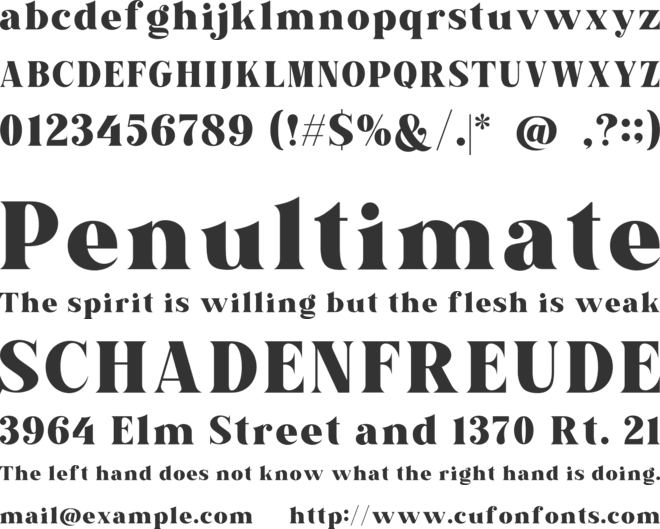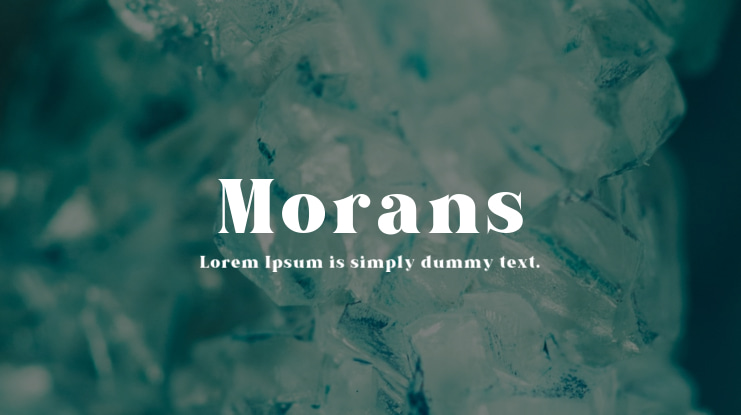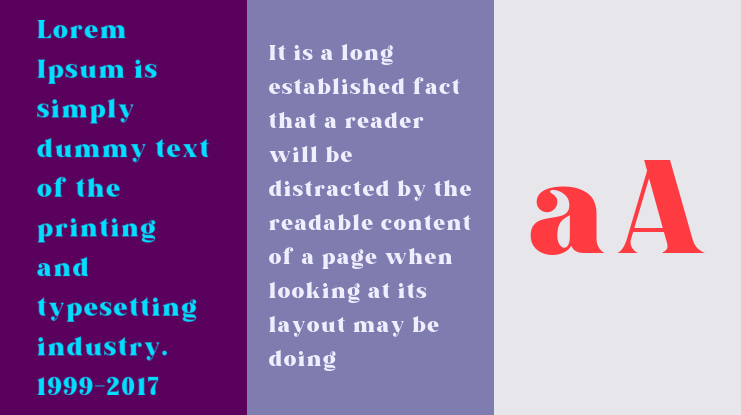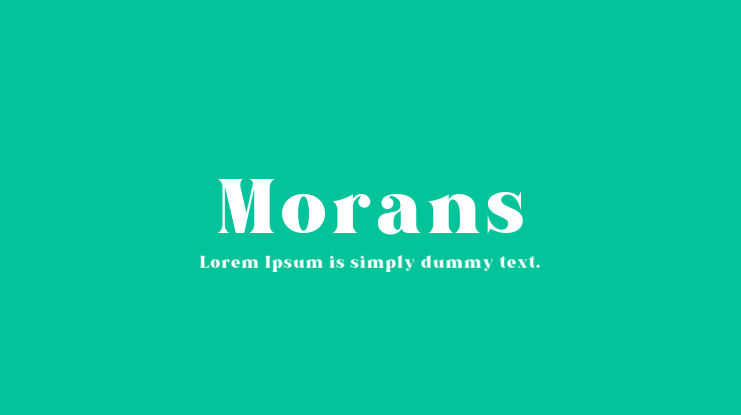
Morans Font
Morans Font: A Masterpiece of Classy Serif Typography
Designed by Alit Design Studio, Morans is a premium serif typeface that embodies elegance, sophistication, and versatility. It’s perfect for designers looking to make a bold and refined statement in their projects.